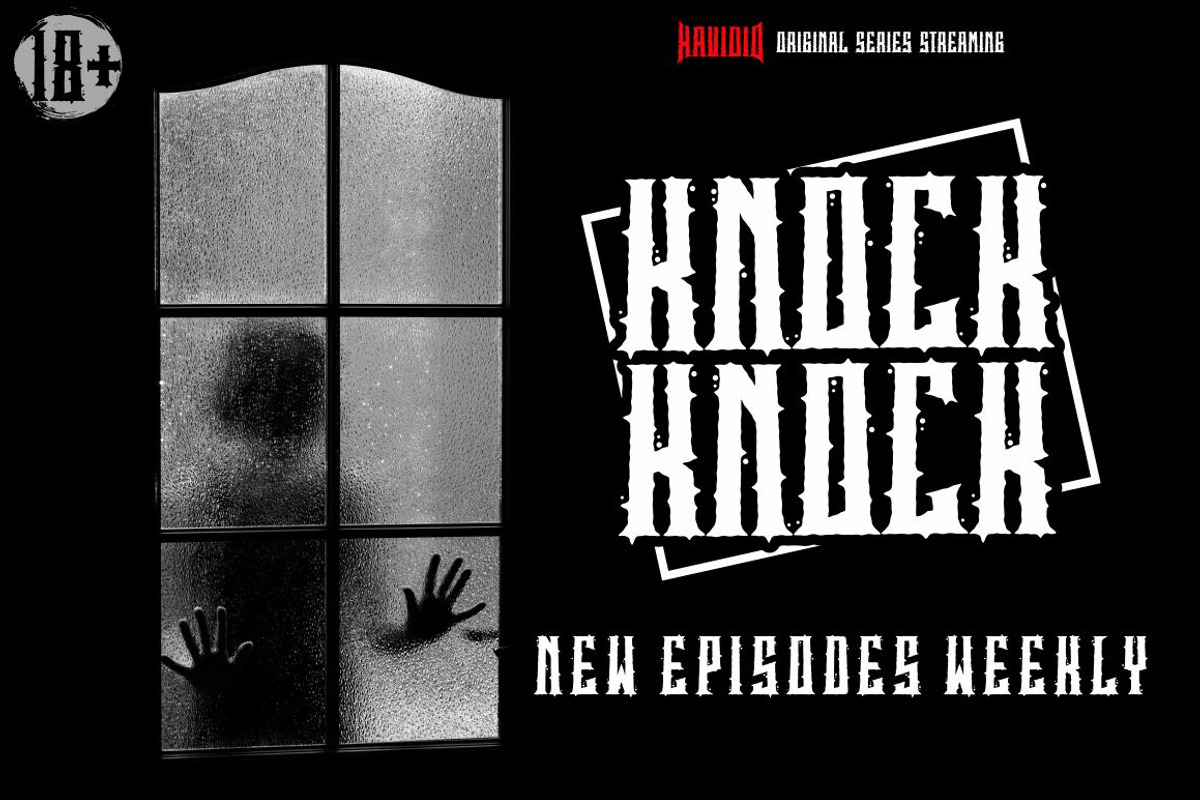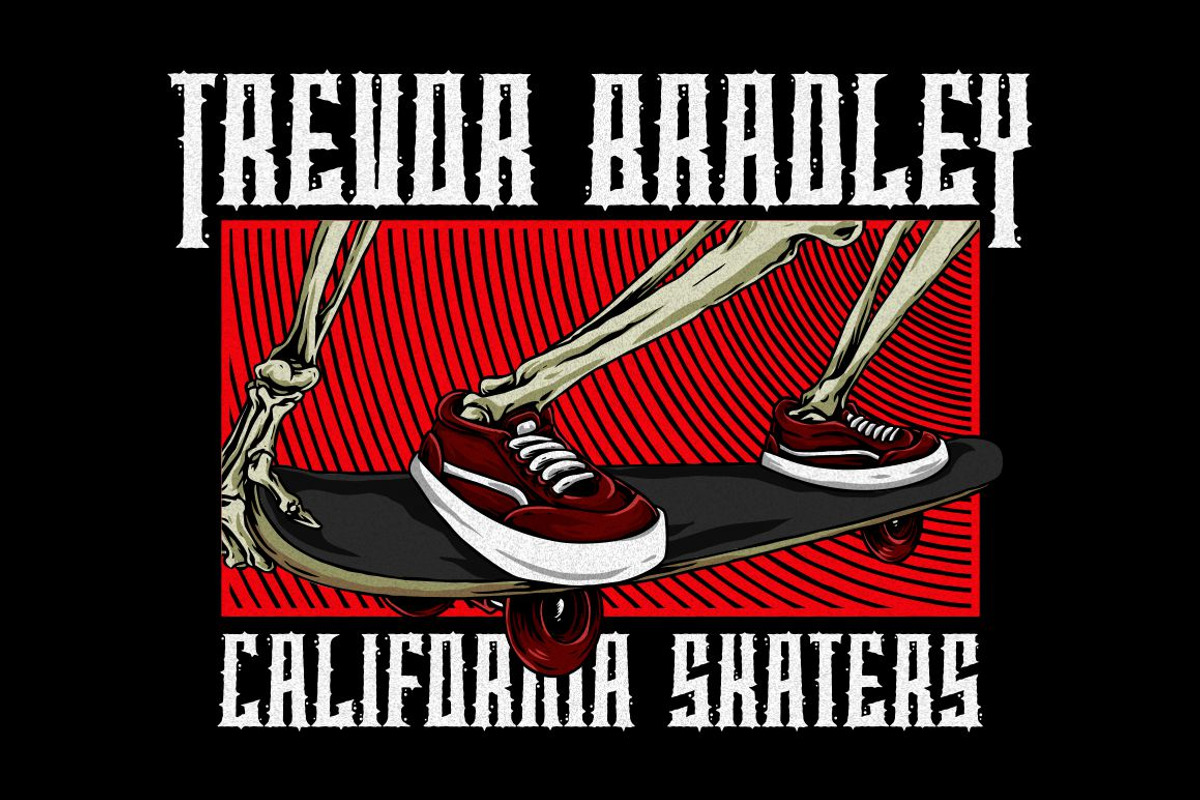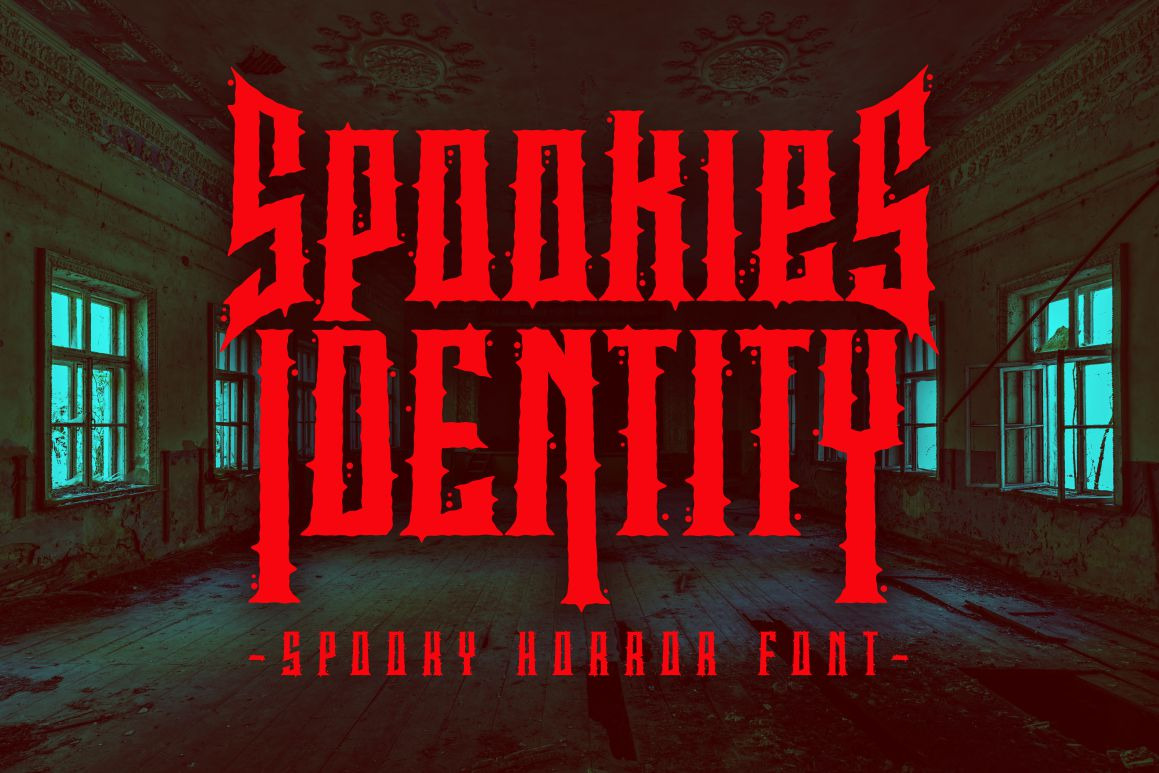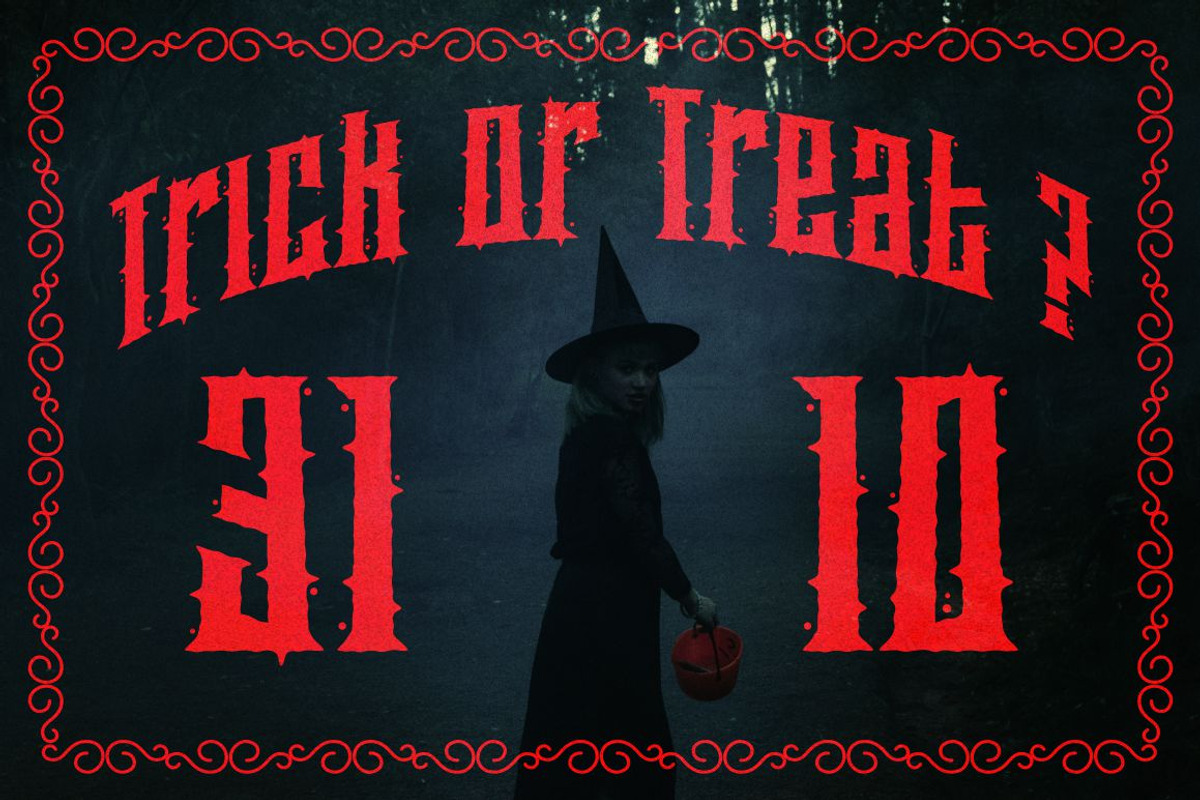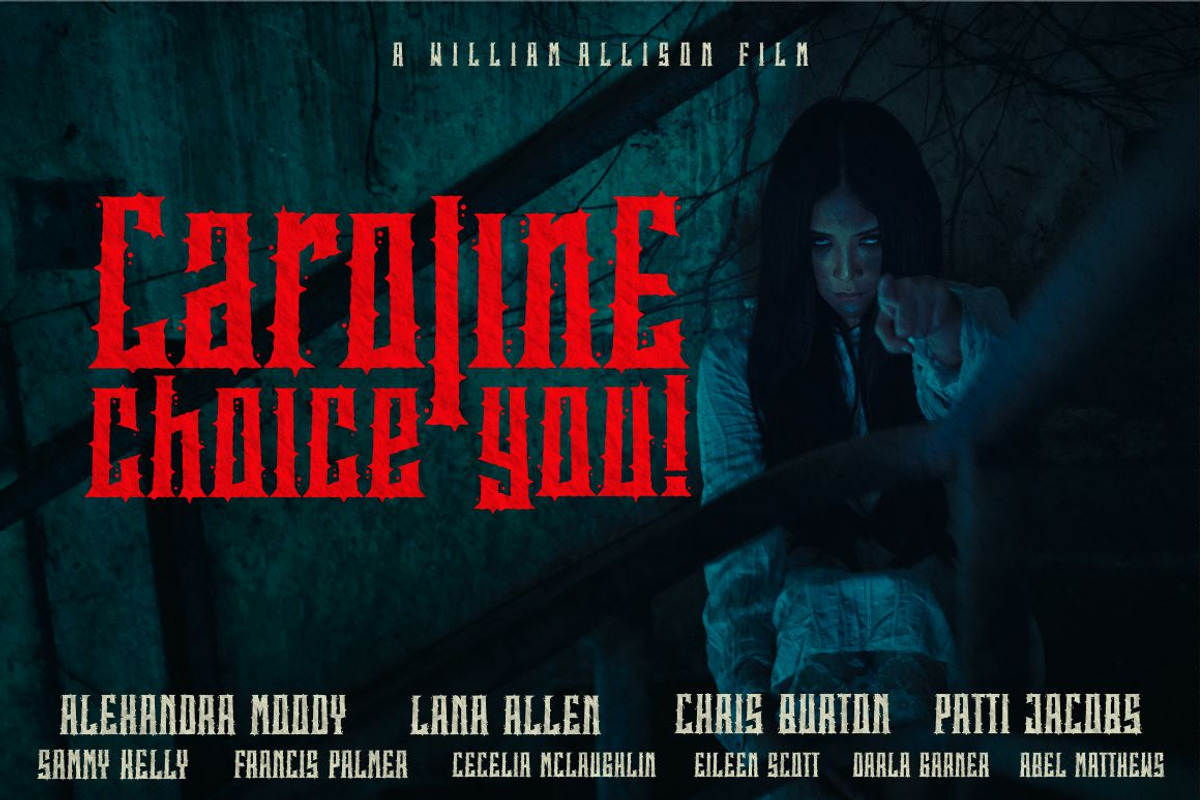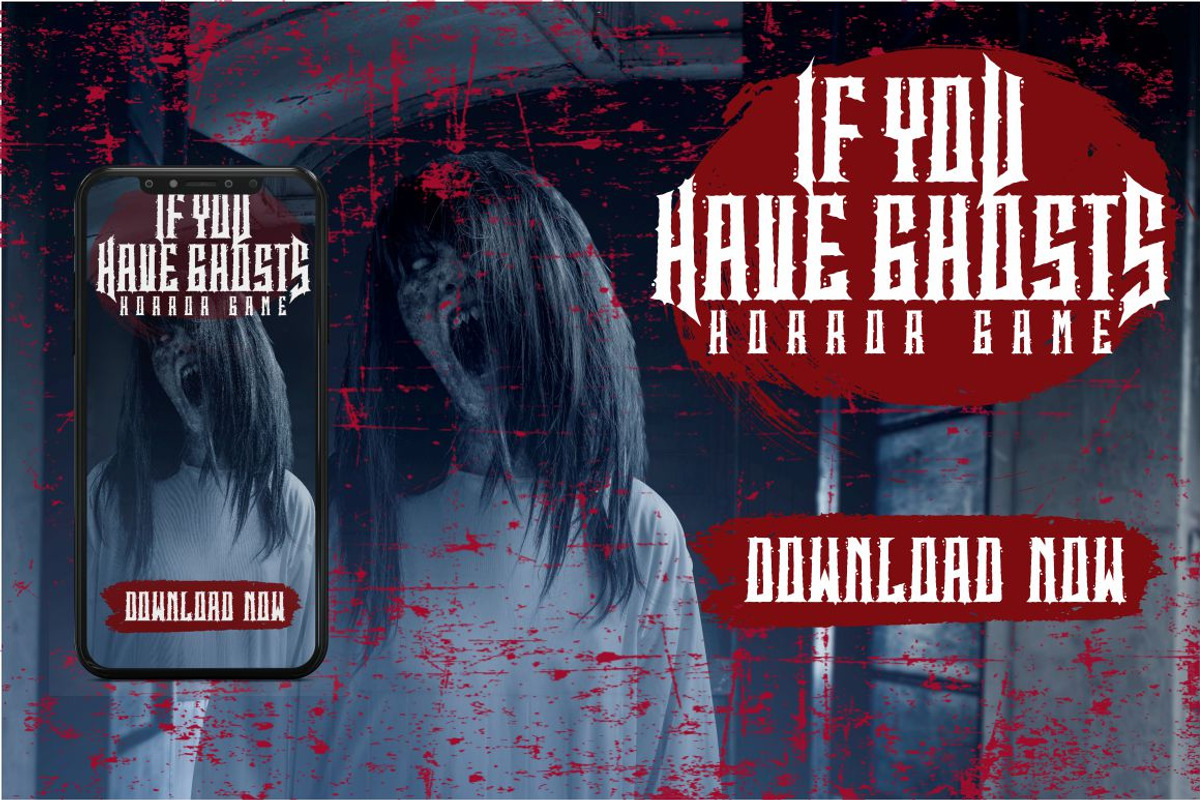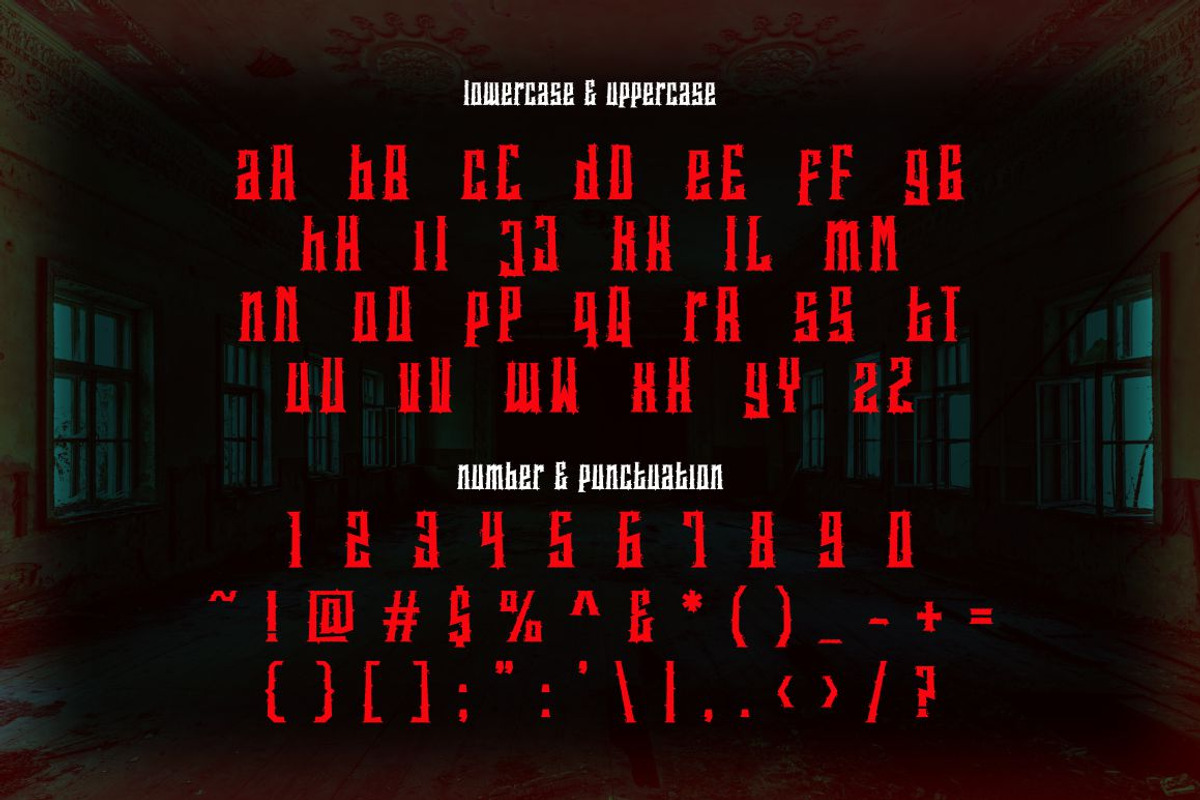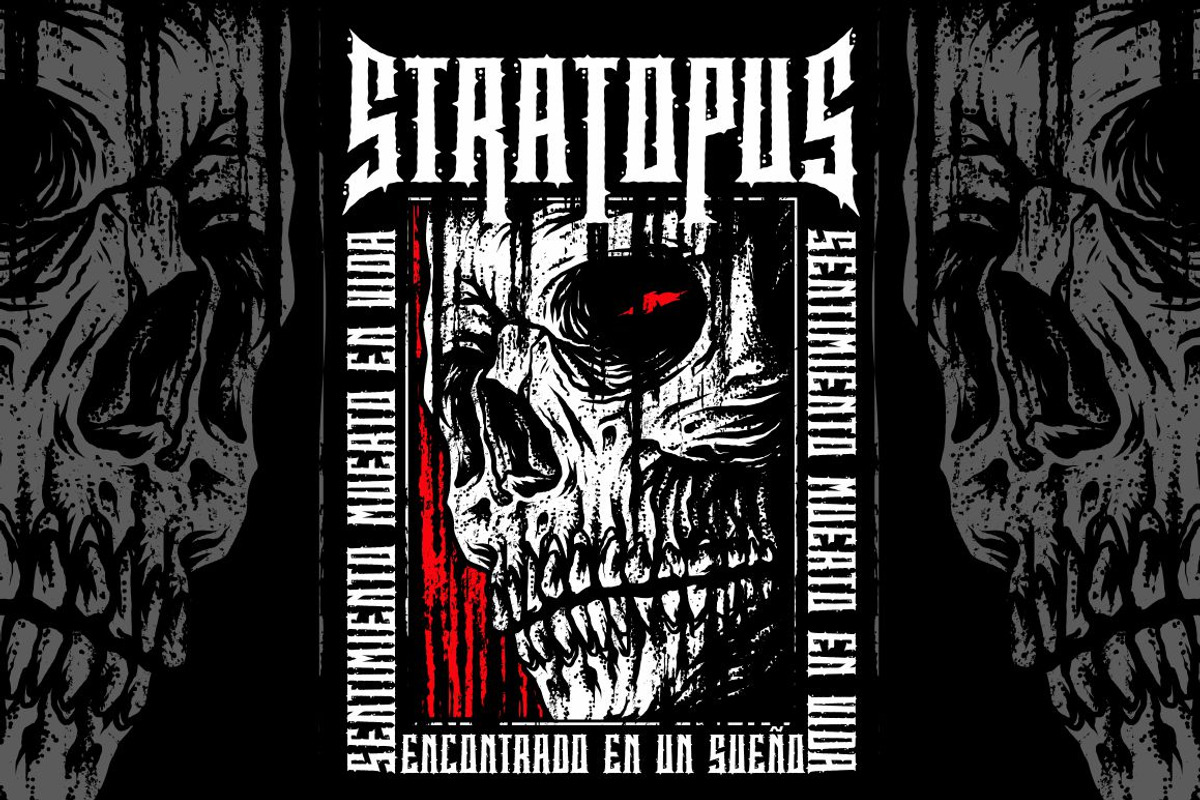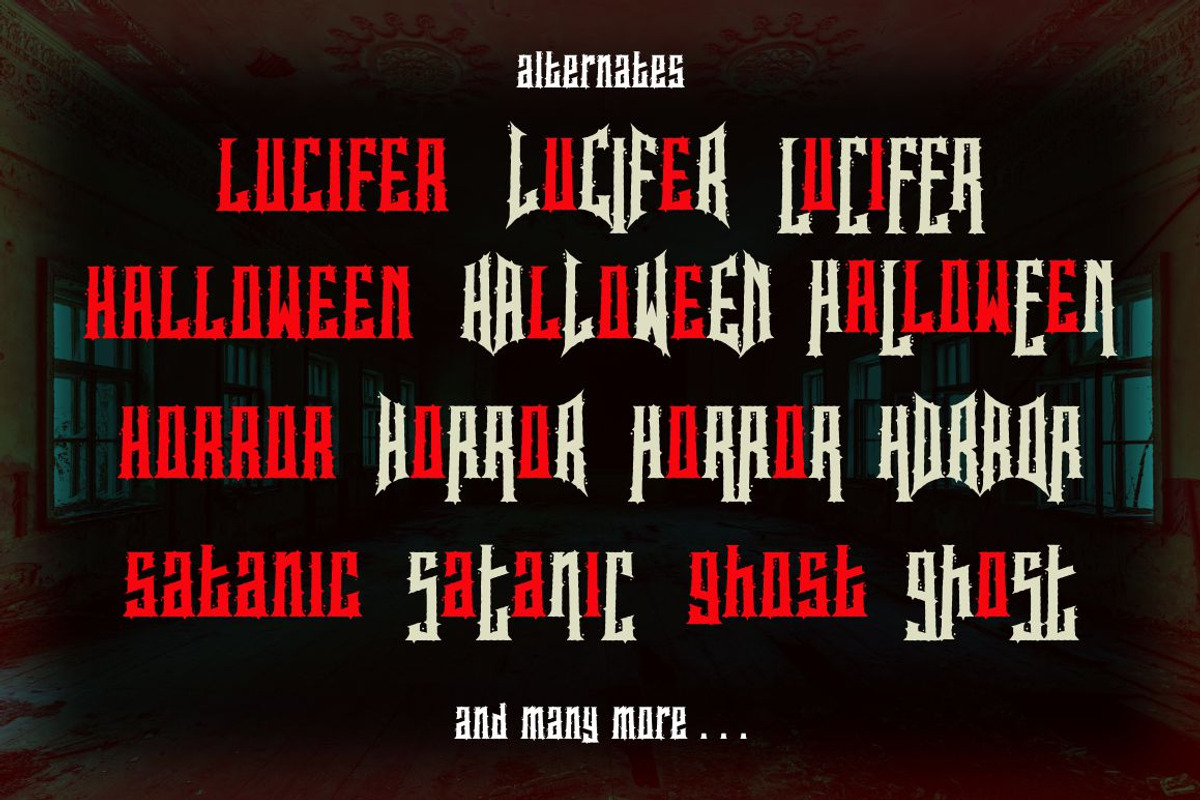
Spookies Identity - Horror Font
Spookies Identity
Spookies Identity is a horror display font. This font is inspired by movie titles and some horror logos. The impression of horror is highly emphasized, but the alternate character of this font that curves at the beginning and end of the letter makes this font very suitable to be used as a logo and poster. Spookies Identity would be perfect for Logo, title, logotype, cover, headline, apparel, comic, cover books, cards, posters, or anything that requires a horrror or scarylook!